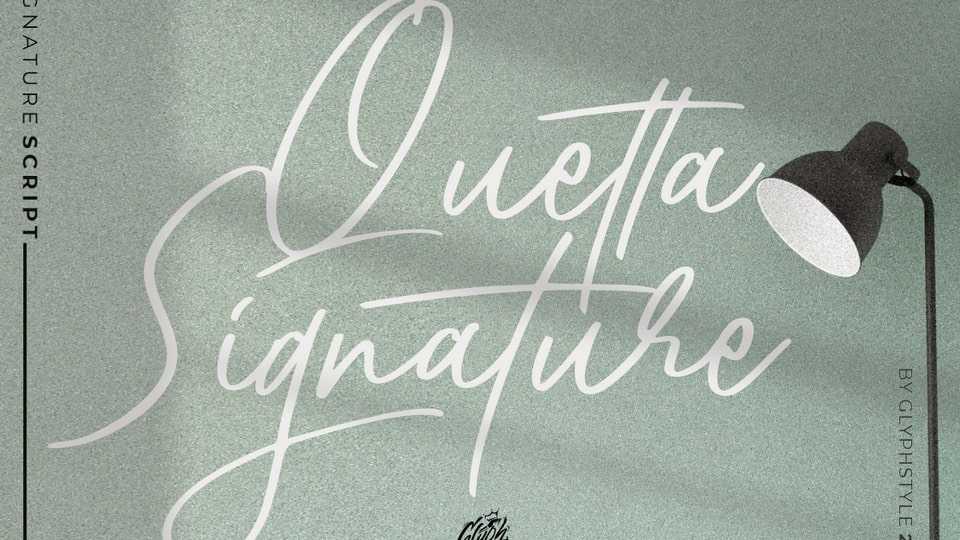
Download Quetta font, a casual signature style typeface with natural line movements that make it classy and elegant. This signature font is perfect for cover, watermarks, branding, business cards, product, logos, etc.